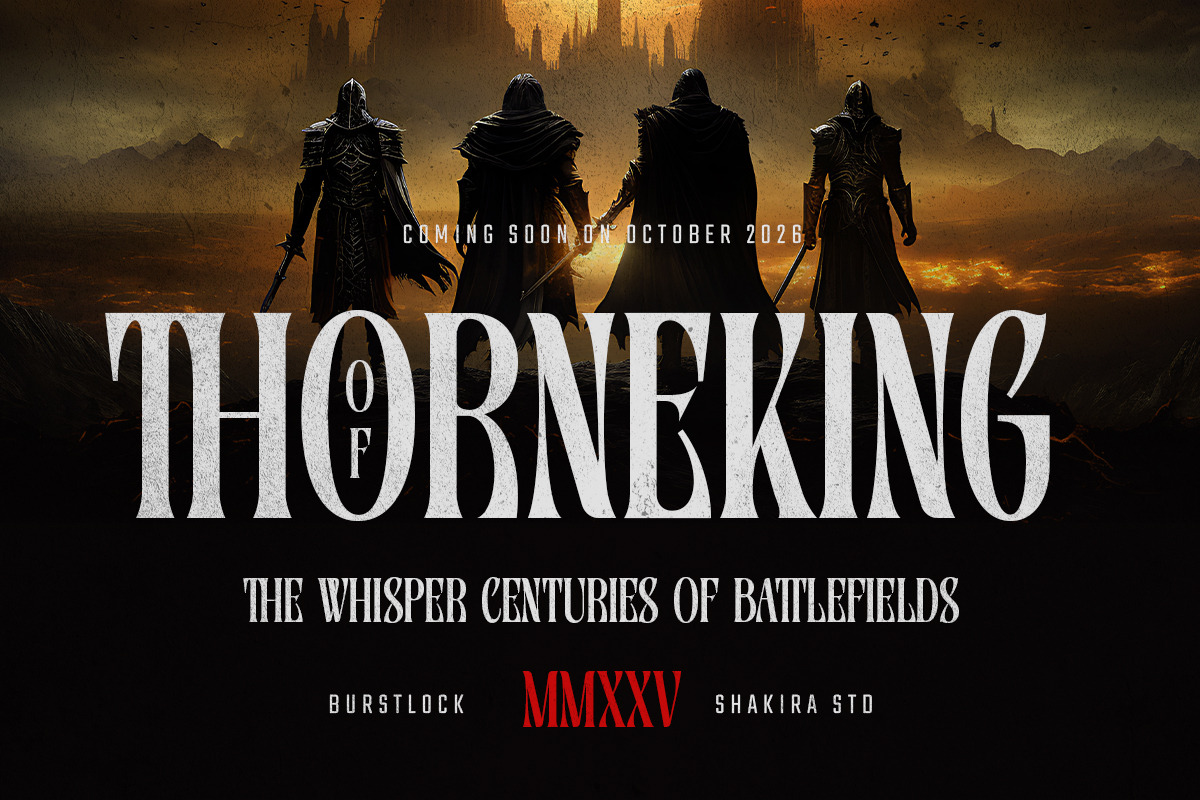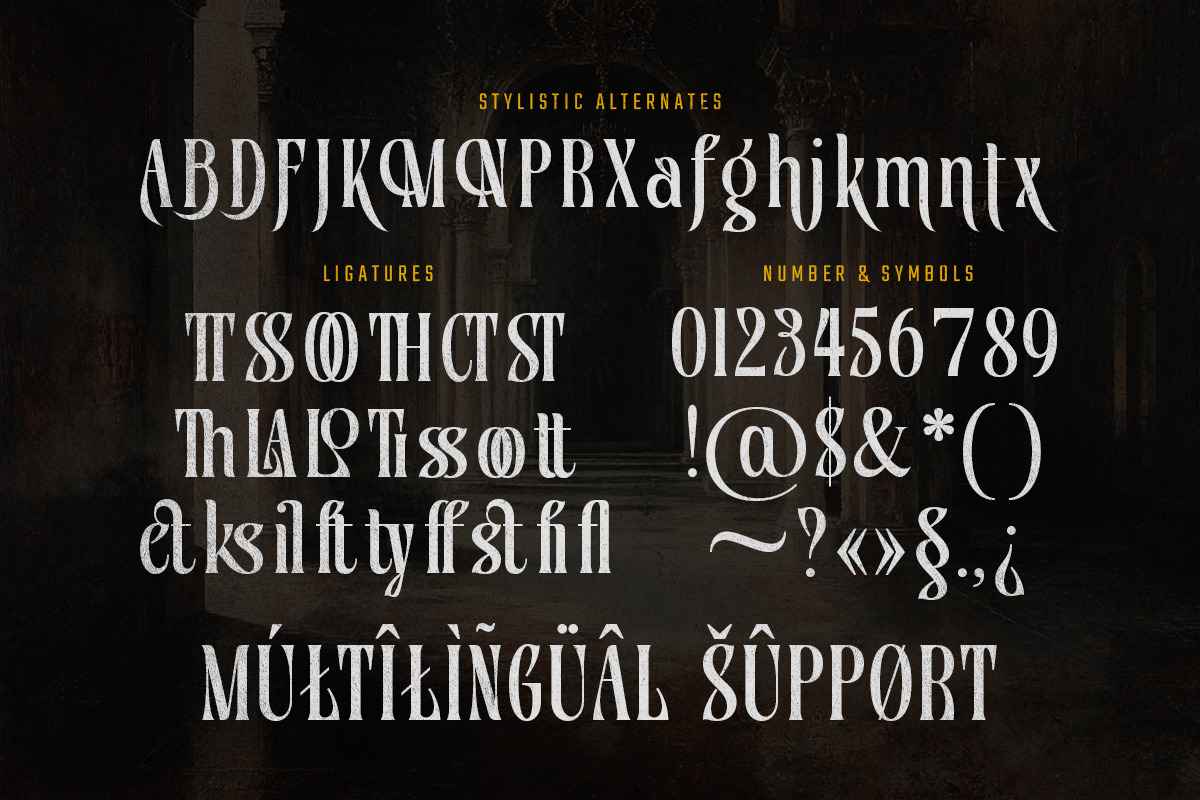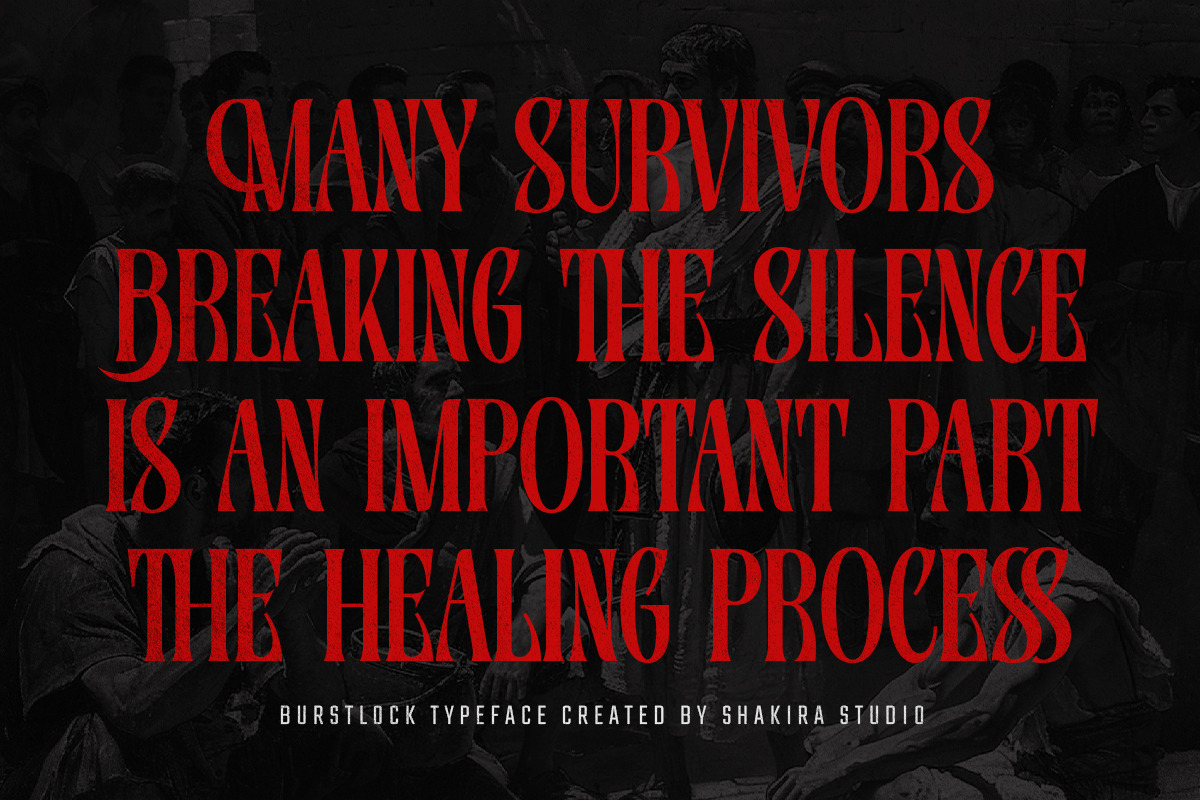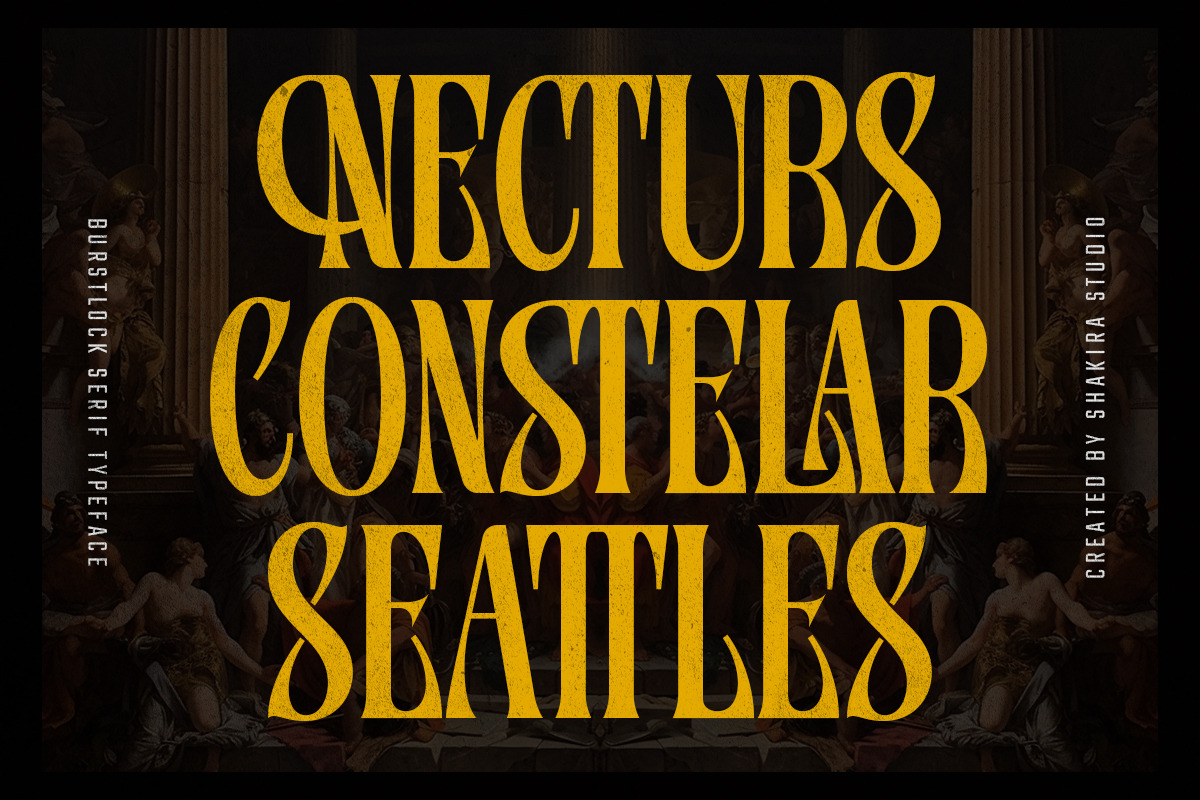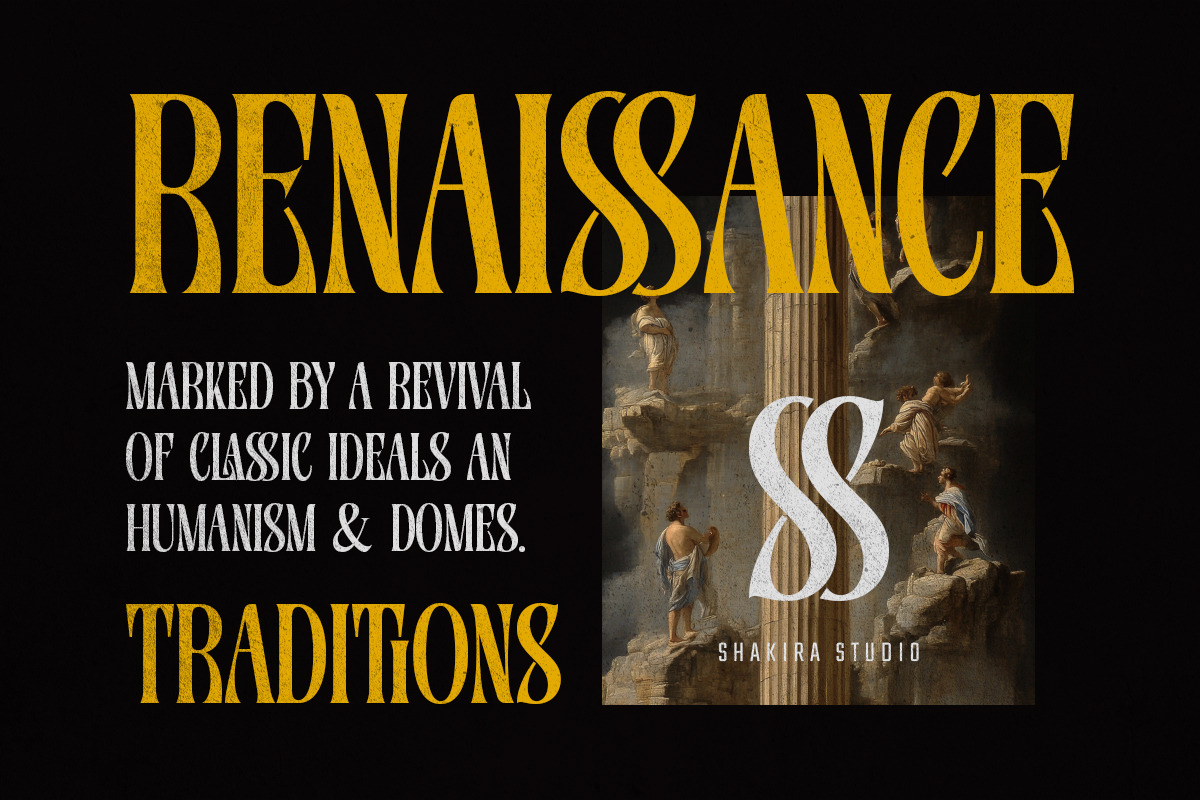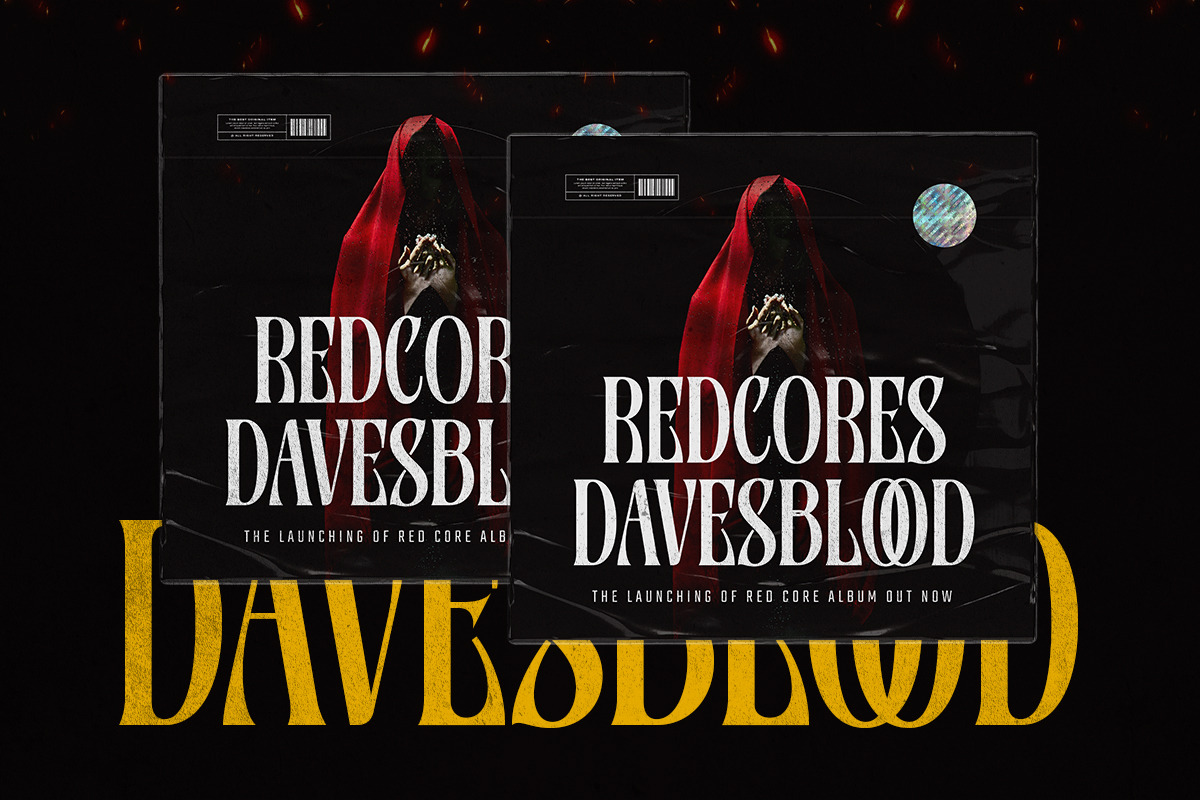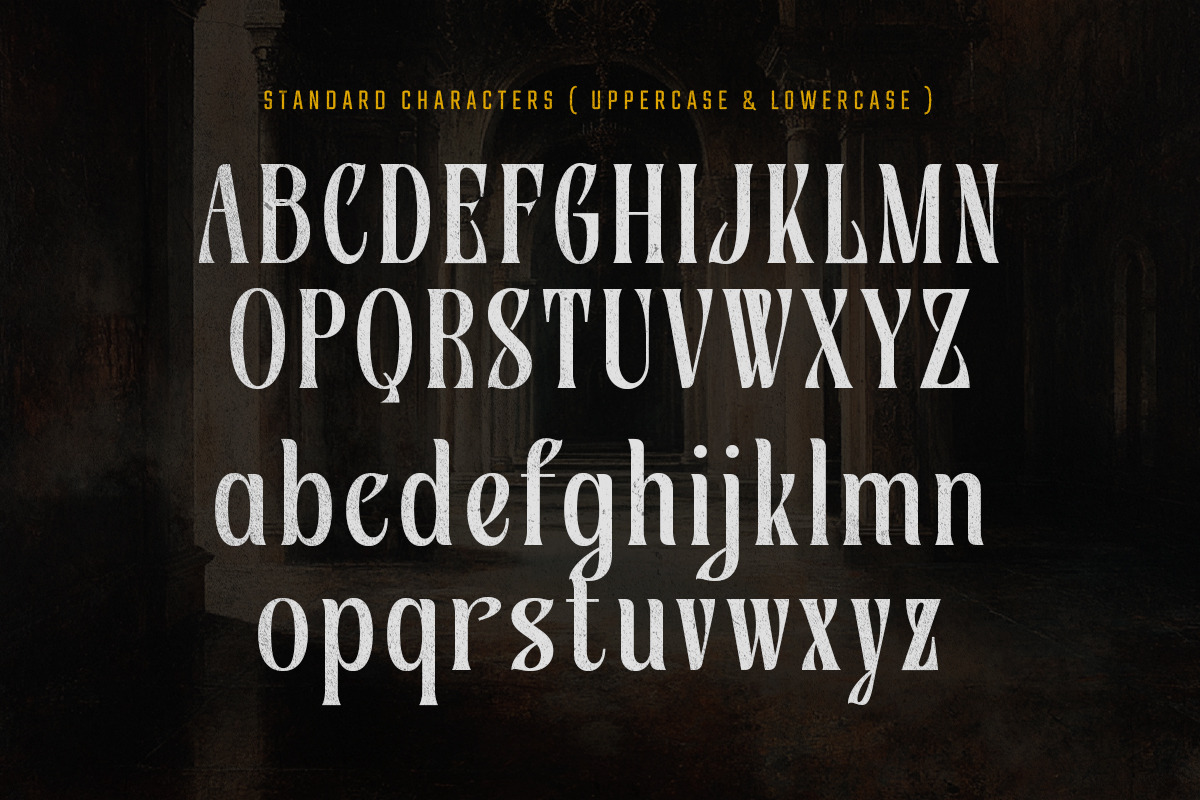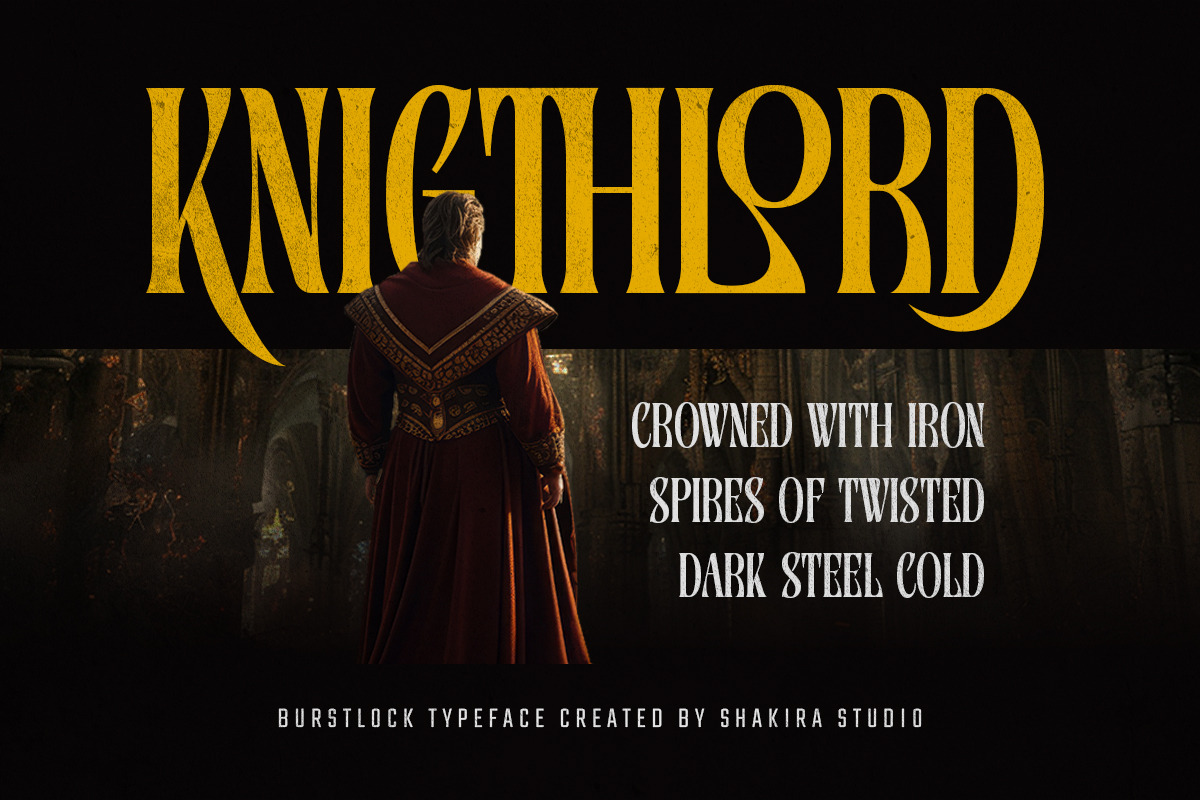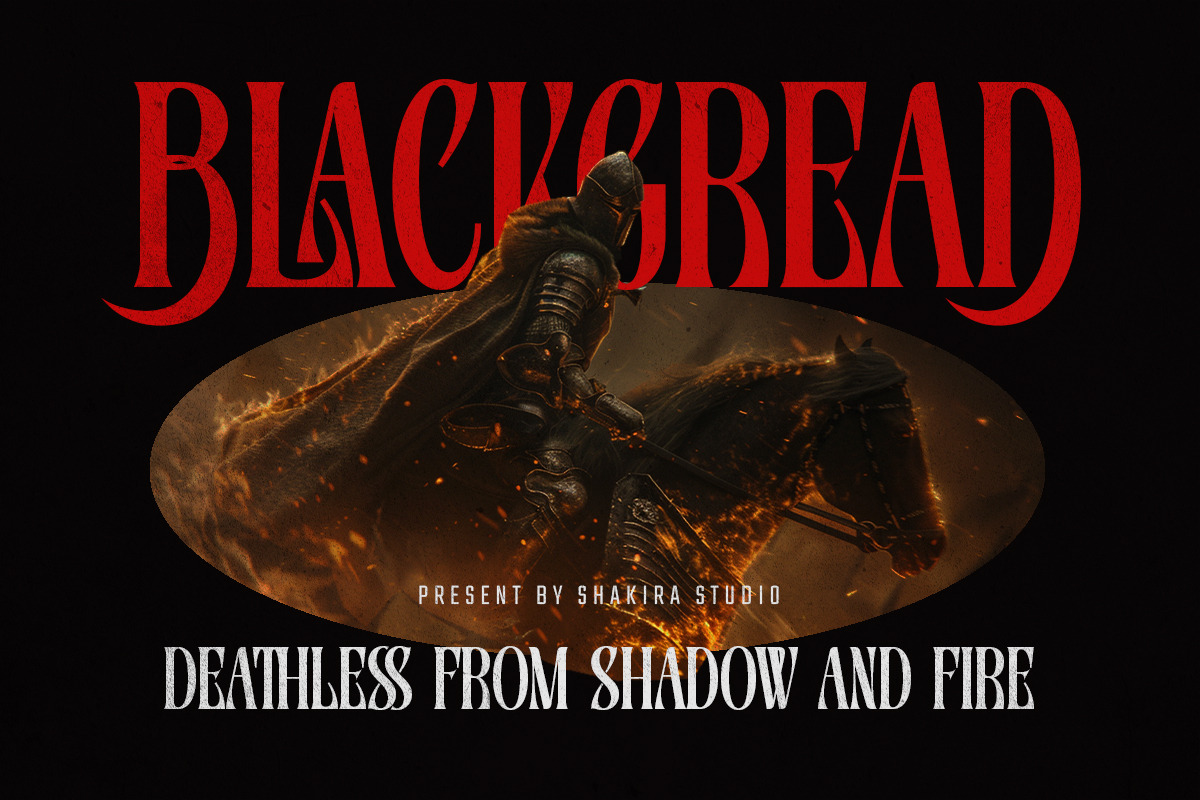
Epic Fantasy Display - Burstlock
Meet Burstlock, a fantasy display serif designed for dramatic storytelling.
Inspired by medieval structure and cinematic typography, Burstlock brings intensity and bold character into every letter. Perfect for book covers, game titles, fantasy branding, movie posters, and epic visual identities.
Strong, heroic, and unforgettable.
- Regular & Italic
- High-impact serif structure